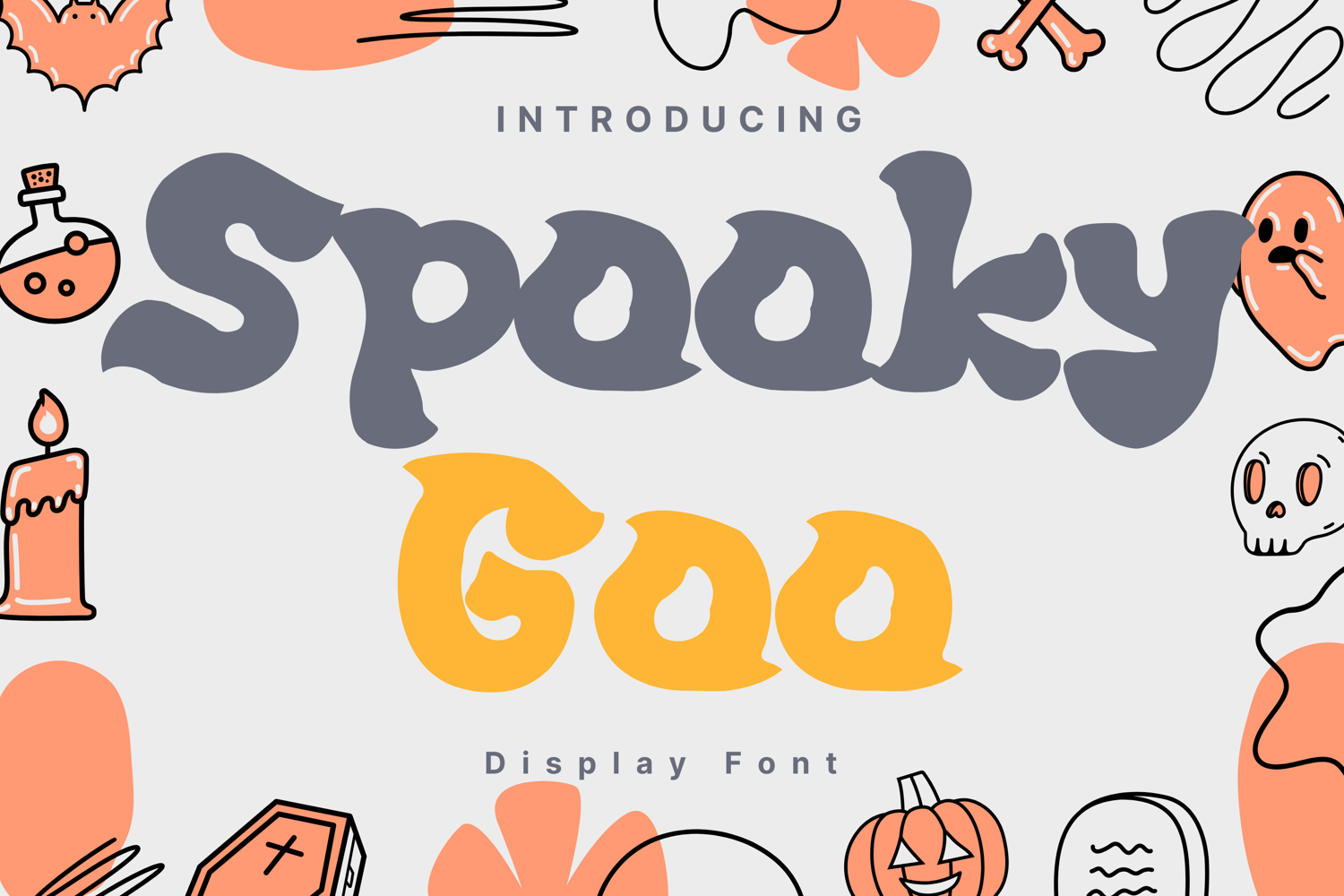
Spooky Goo Style
Spooky Goo
Spooky Goo Style display font inspired by dripping slime and ghostly shadows. Perfect for Halloween party posters, haunted house flyers, creepy invitations, horror-themed branding, and trick-or-treat decorations. Its bold and bubbly yet eerie letterforms bring a fun but scary vibe to any design.